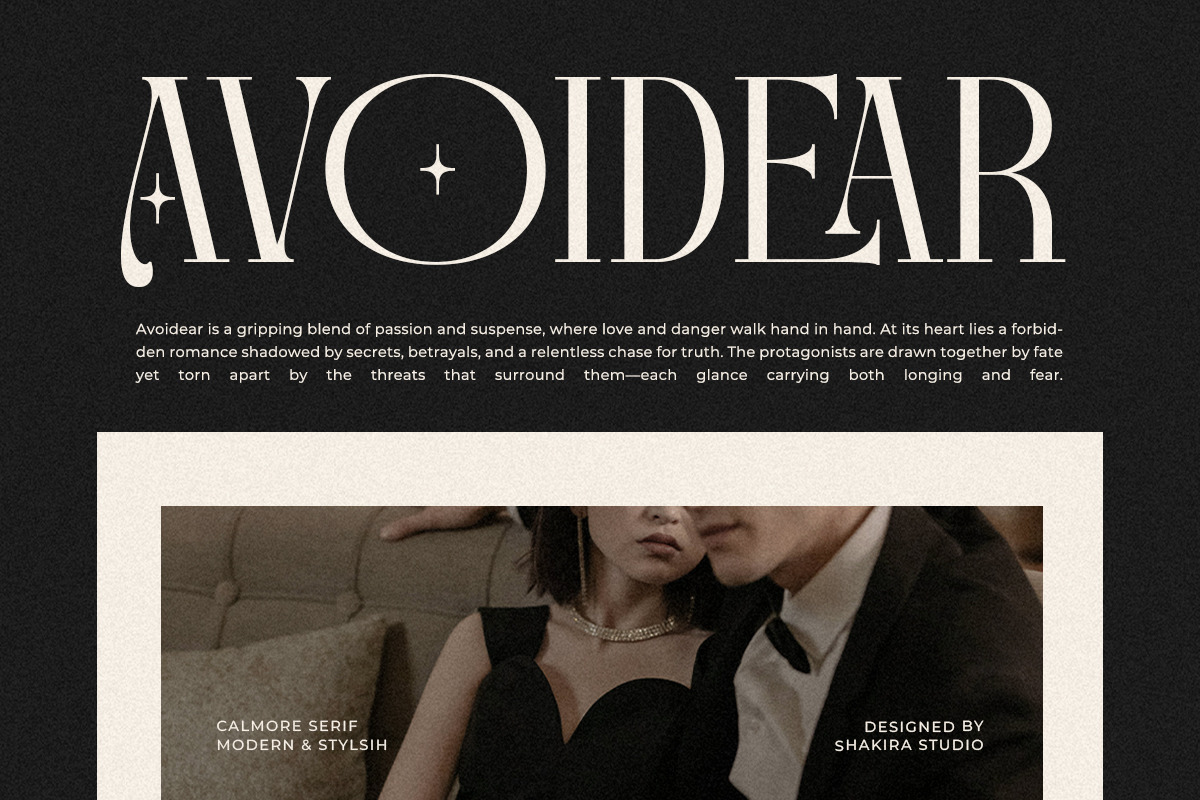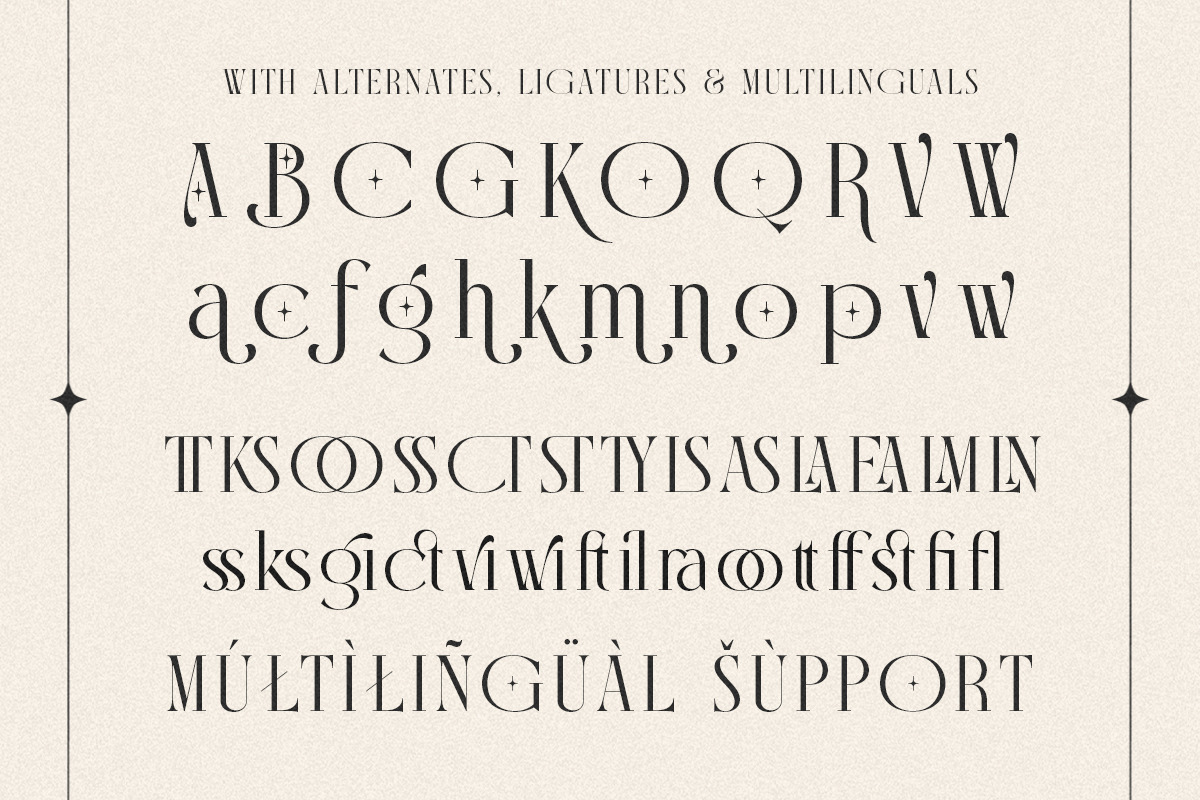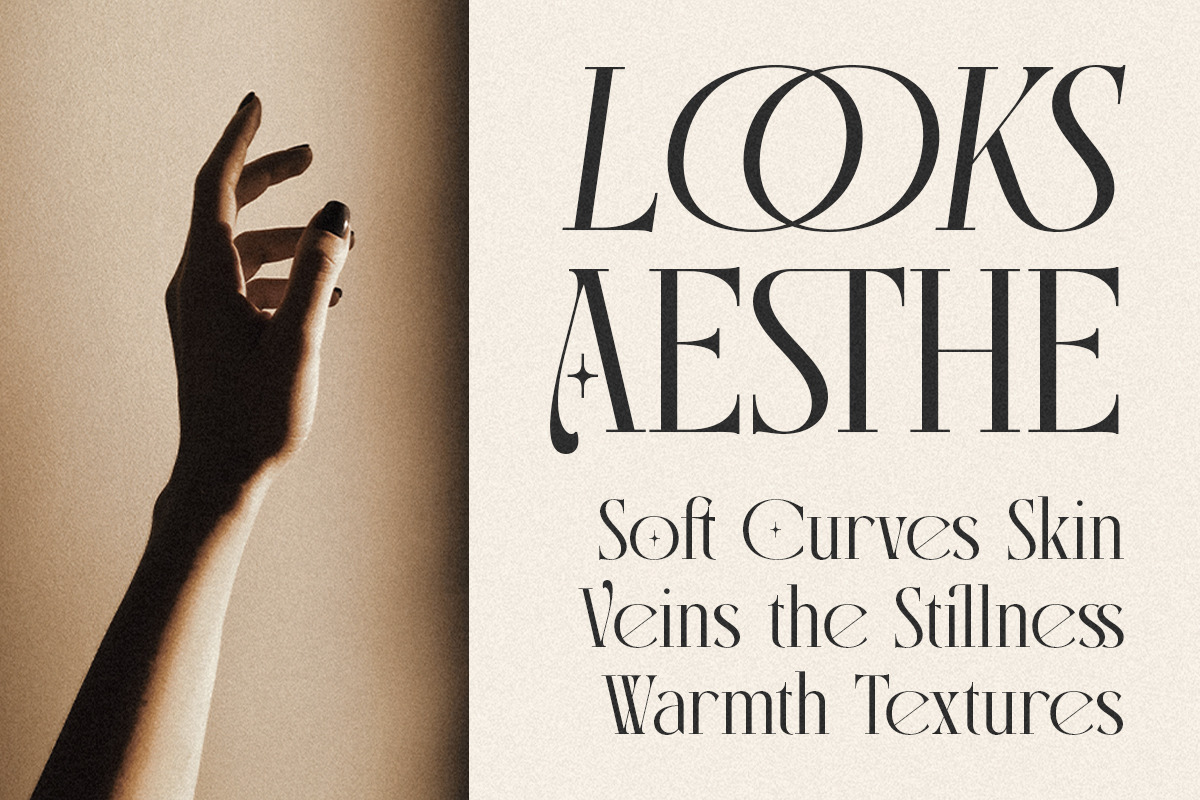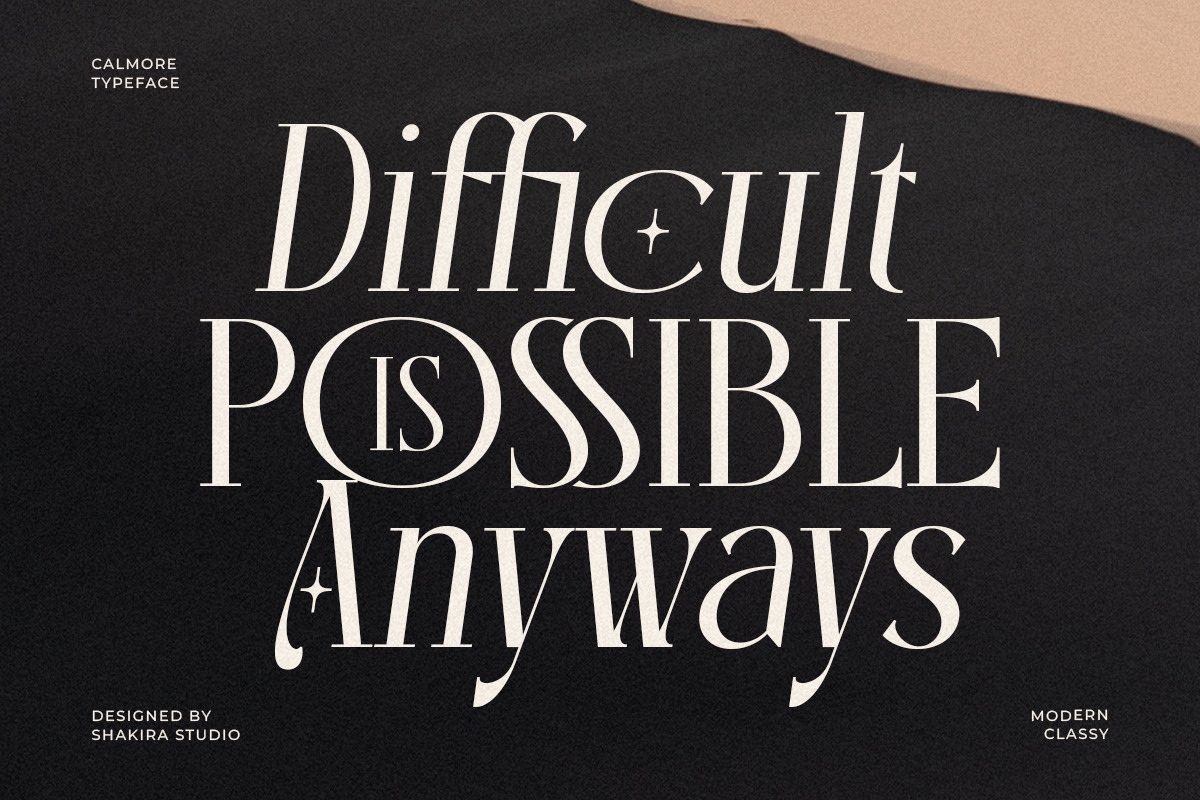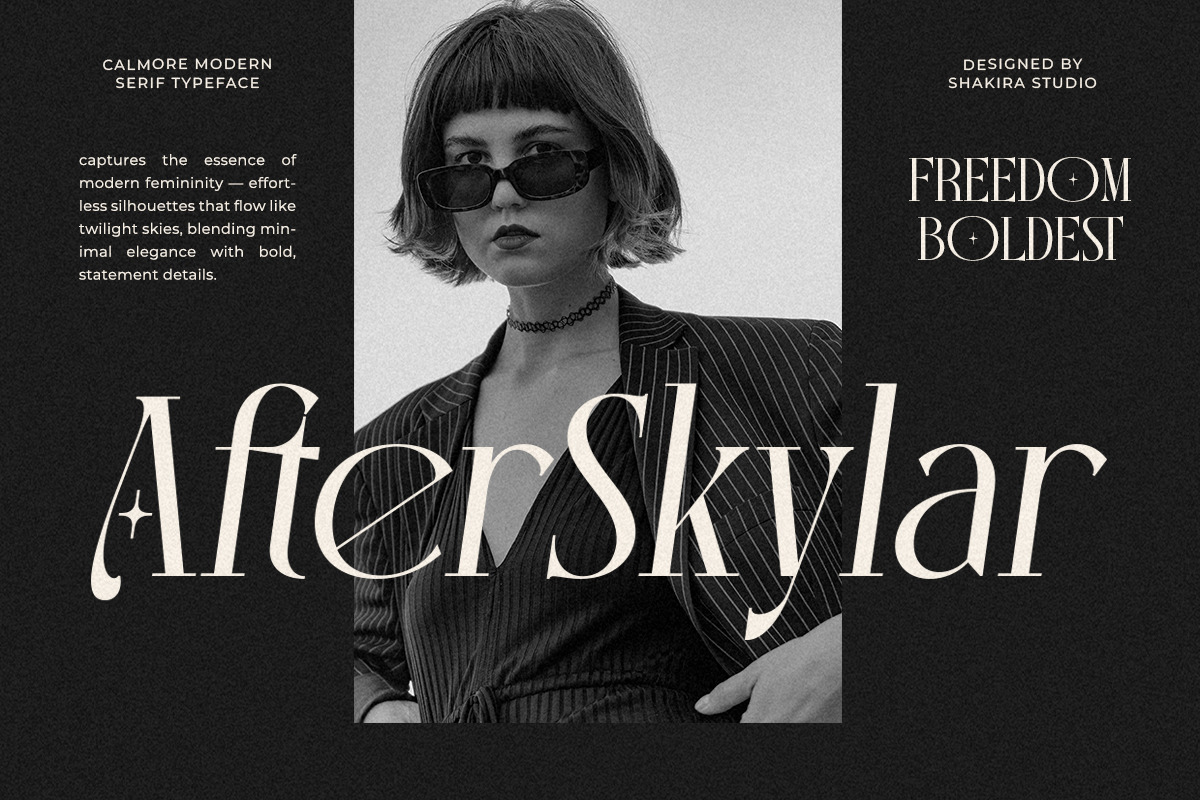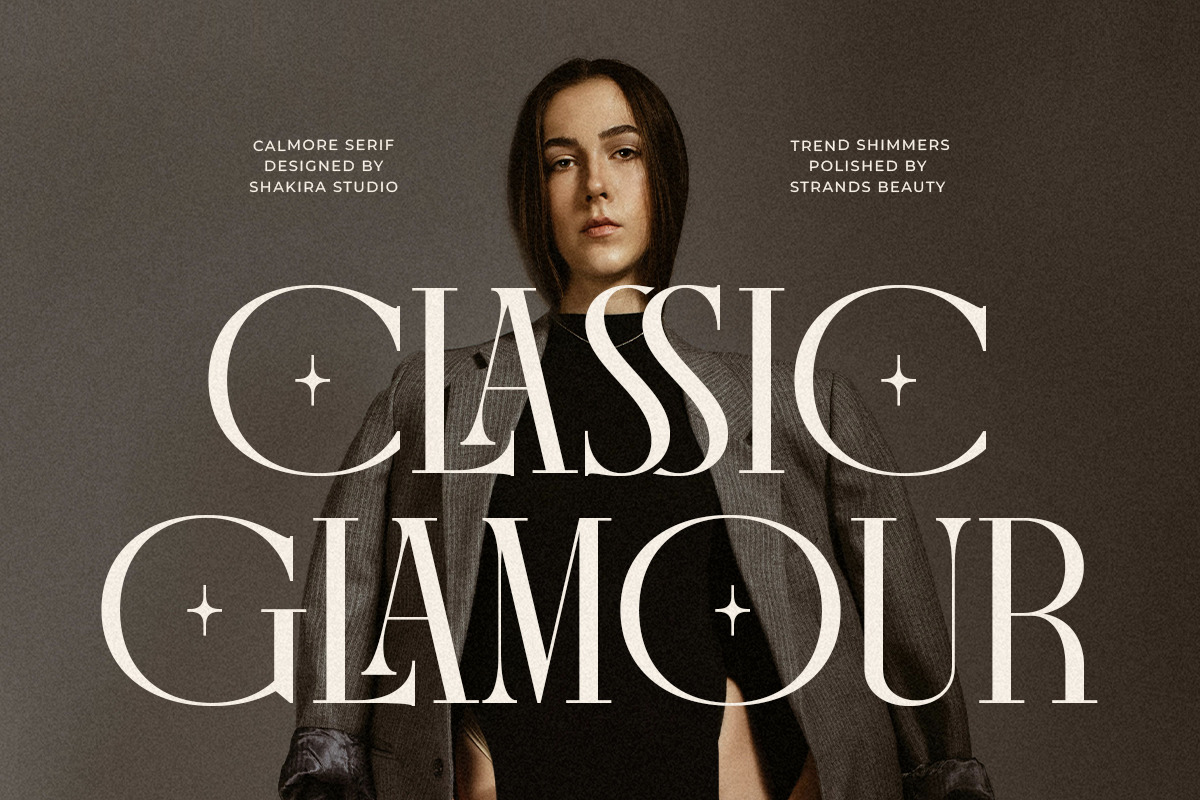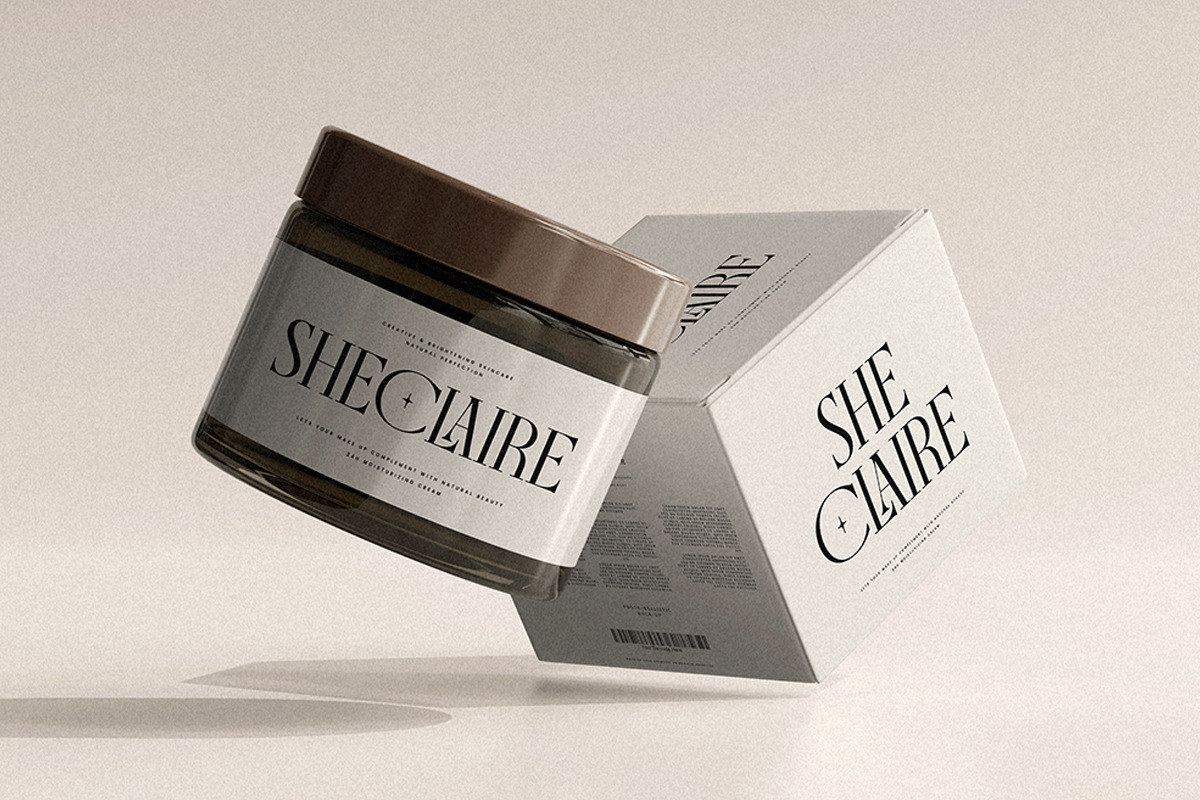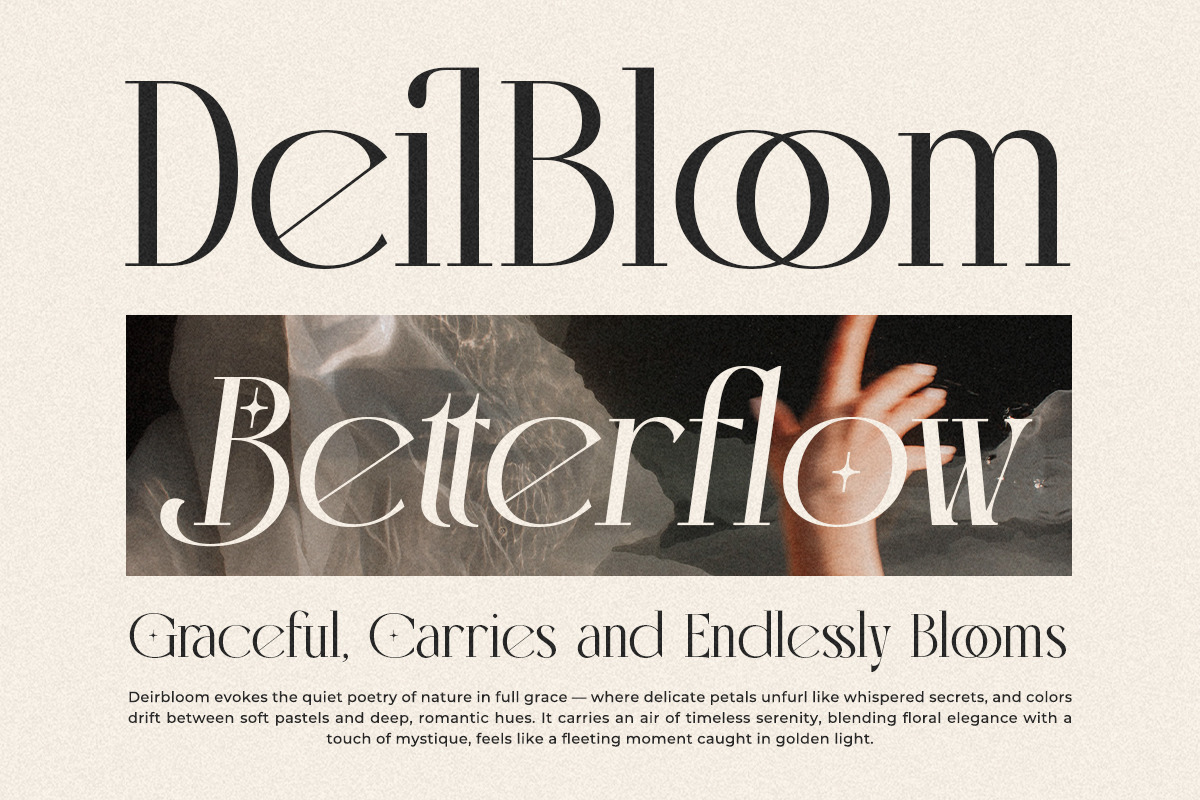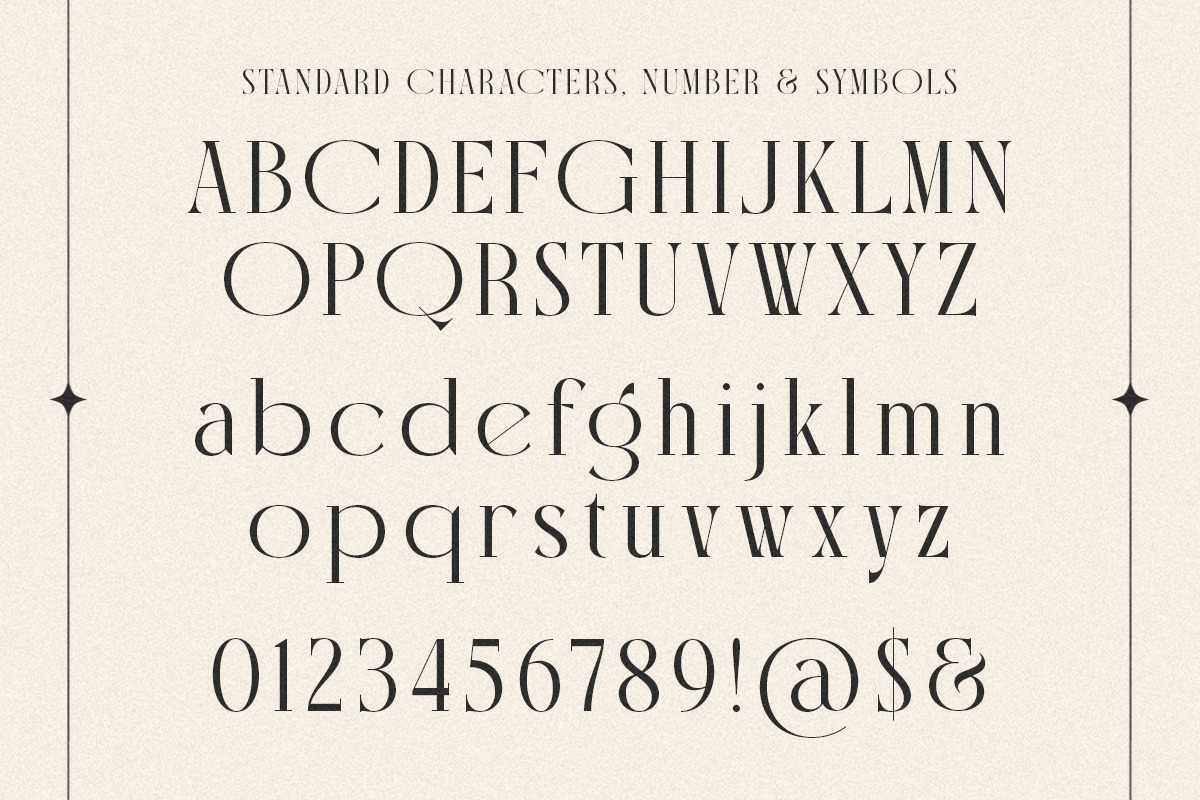
Calmore - Modern Elegant Serif
Calmore – Modern Elegant Serif Branding Font is a refined serif typeface designed for timeless branding, luxury packaging, editorial layouts, and modern design projects. With graceful curves, unique ligatures, and stylish alternates, Calmore blends classic sophistication with a contemporary twist, making it the ultimate font for high-end creative professionals.
Crafted with attention to detail, Calmore includes uppercase, lowercase, numbers, punctuation, multilingual support, and versatile stylistic alternates. Perfect for projects that demand elegance and readability, this font elevates your work across digital and print platforms.
Whether you’re building a chic fashion identity, creating luxury packaging, or designing bold headlines, Calmore will add charm, confidence, and a modern classy feel.
- Alternates & ligatures
- Numerals & punctuation
- Regular & italic style
Perfect For : Luxury branding, fashion editorials, beauty packaging, lifestyle blogs, magazine titles, wedding invitations, elegant logos, modern advertising, interior design studios, and high-end product design.